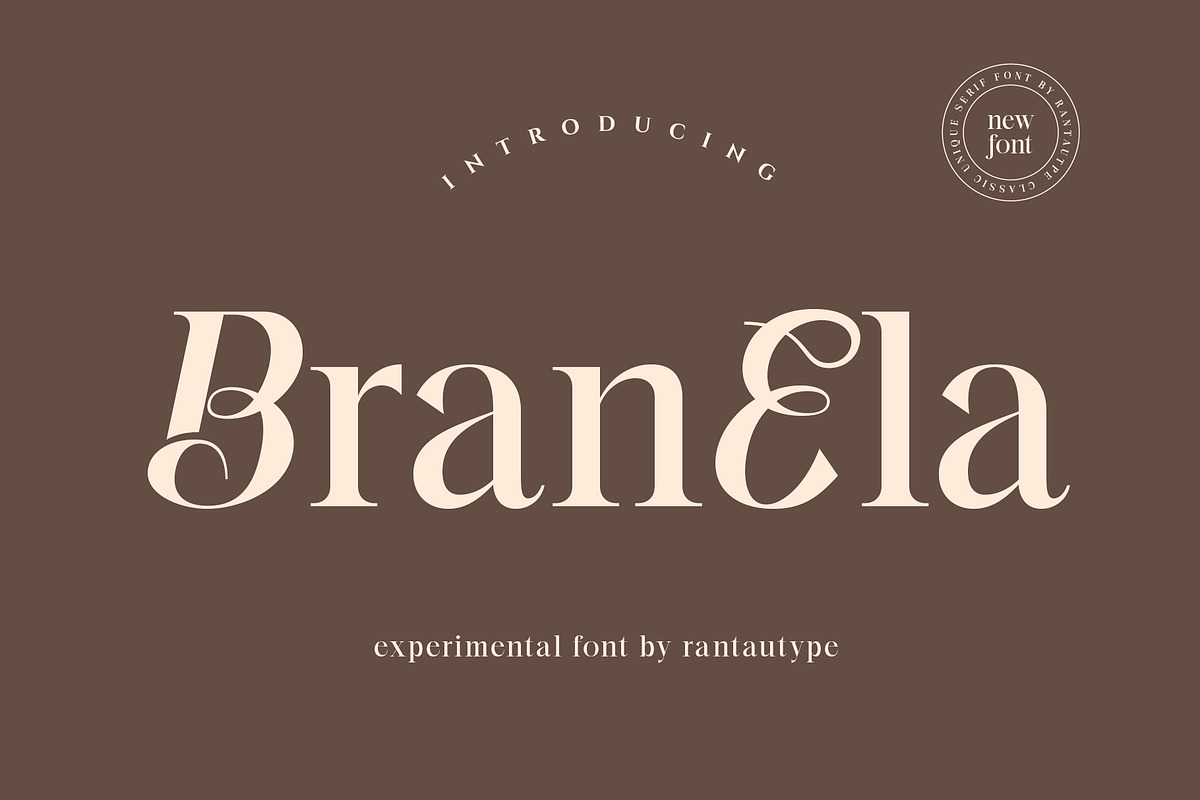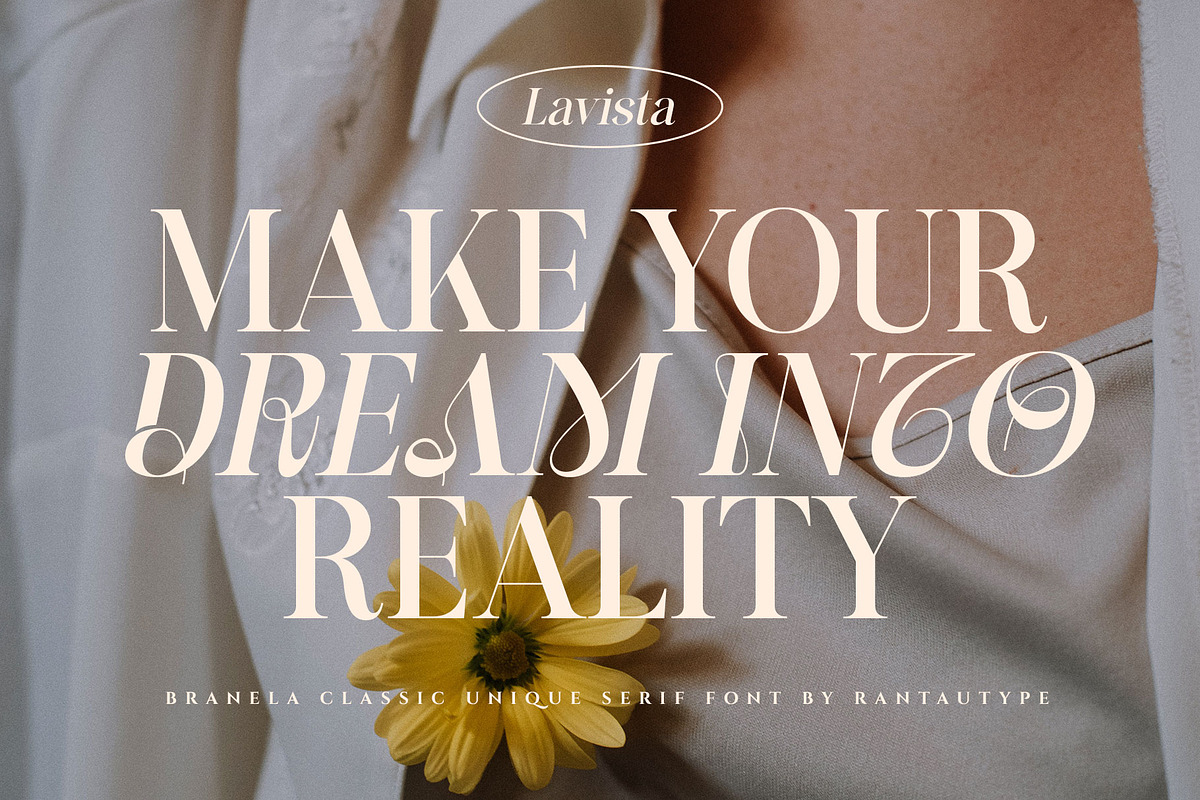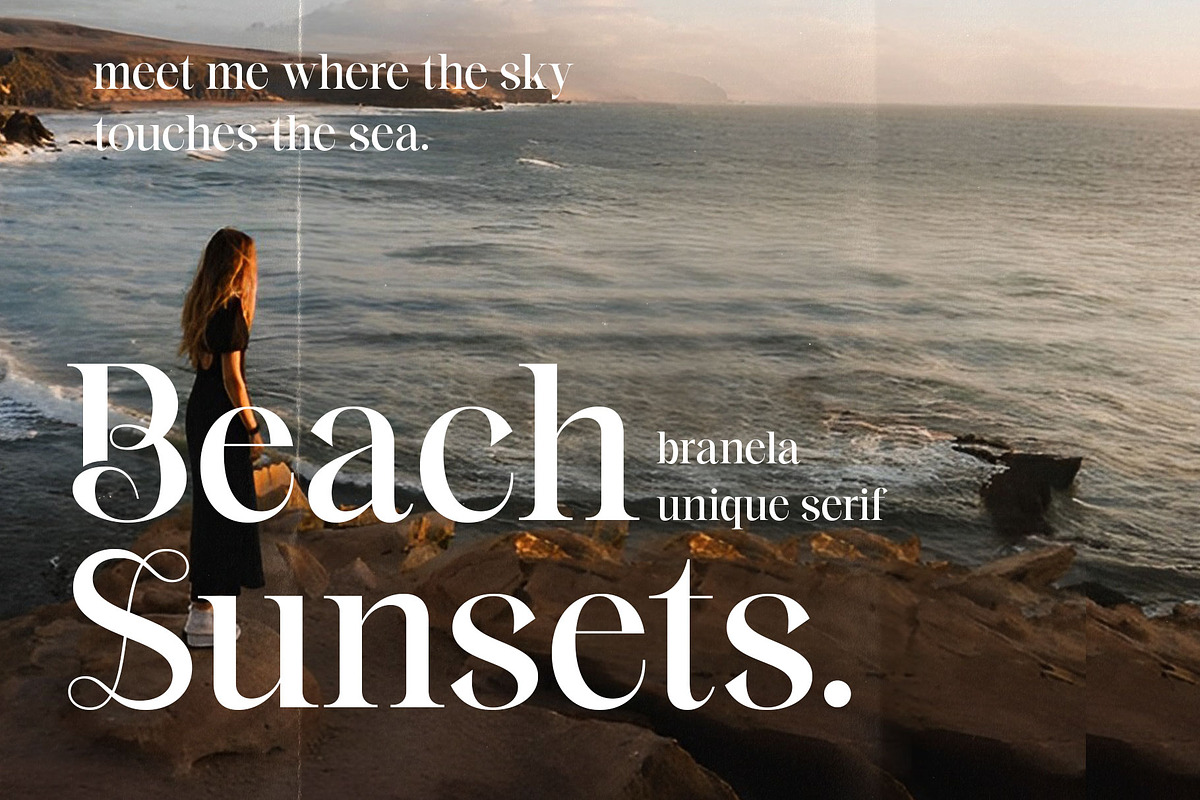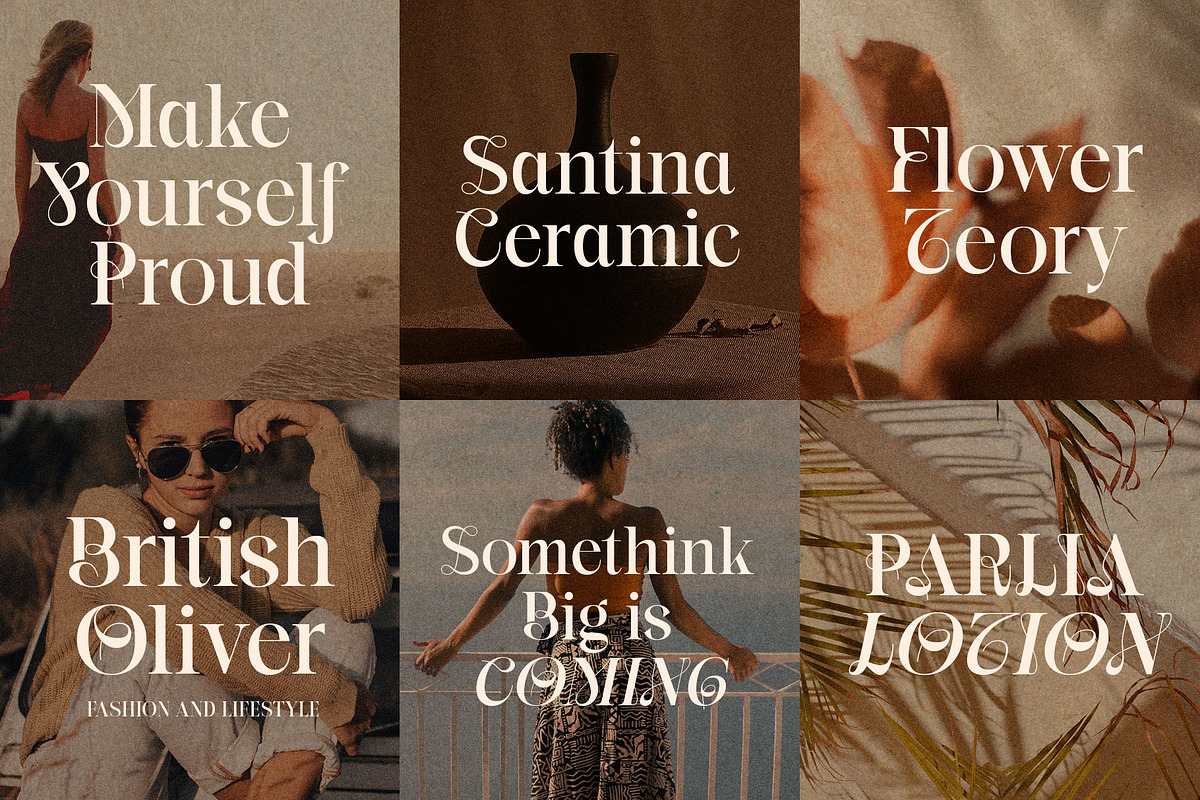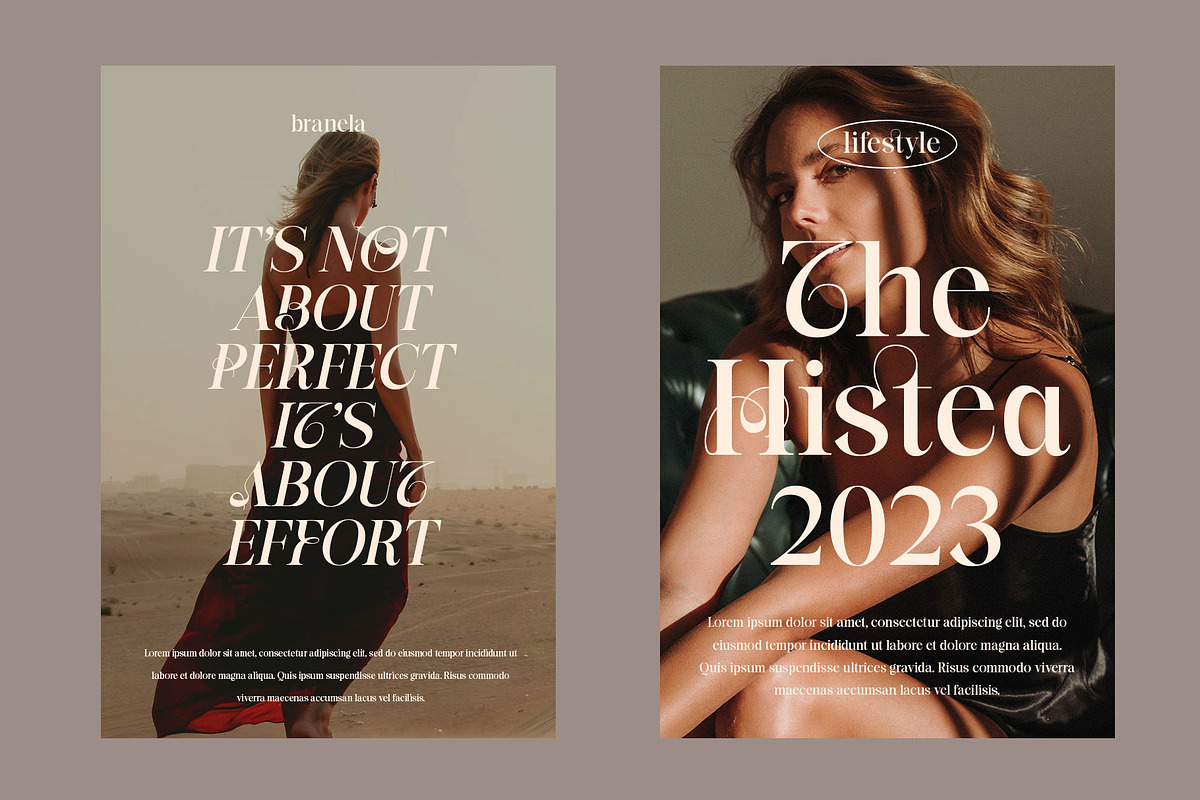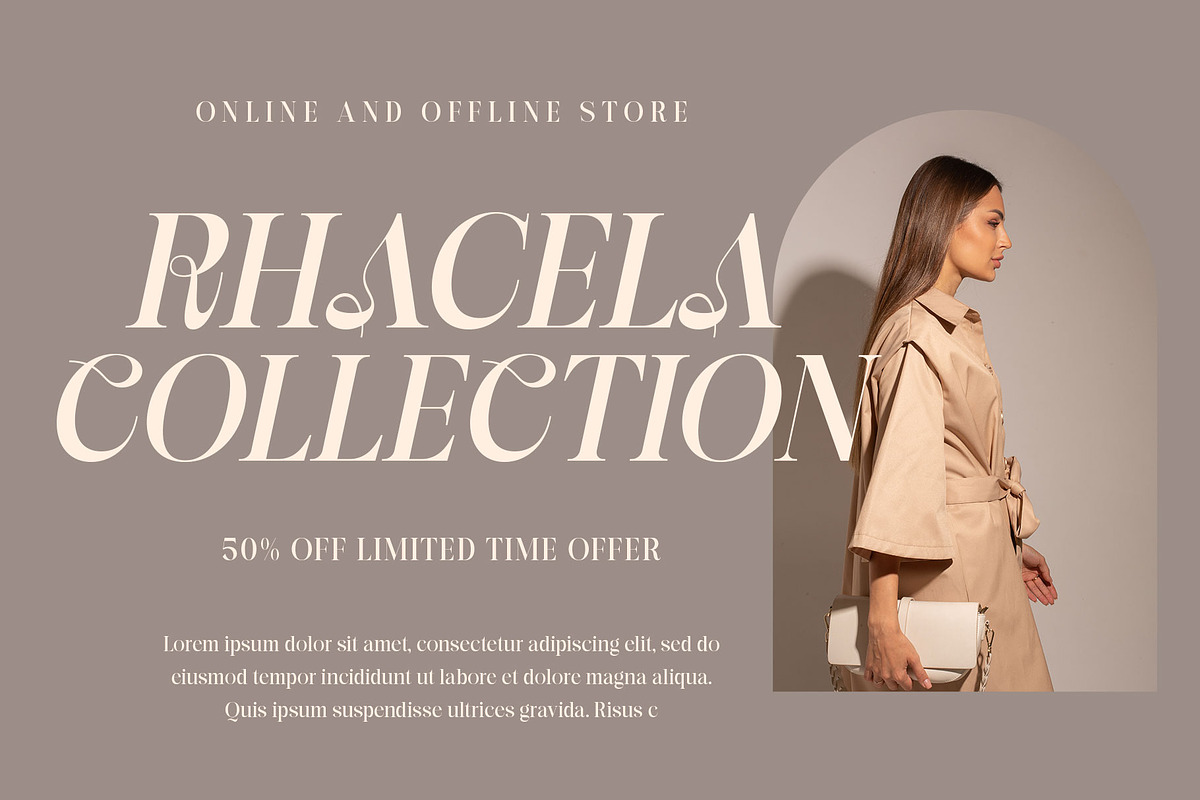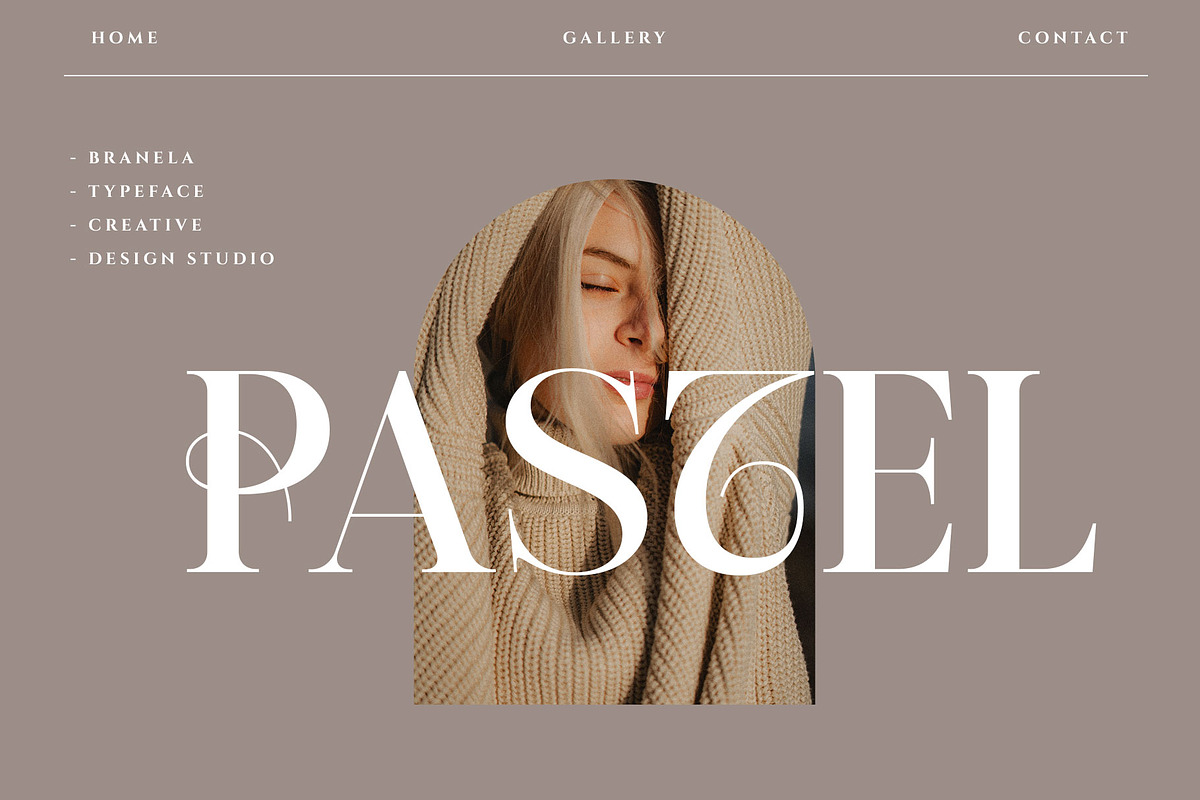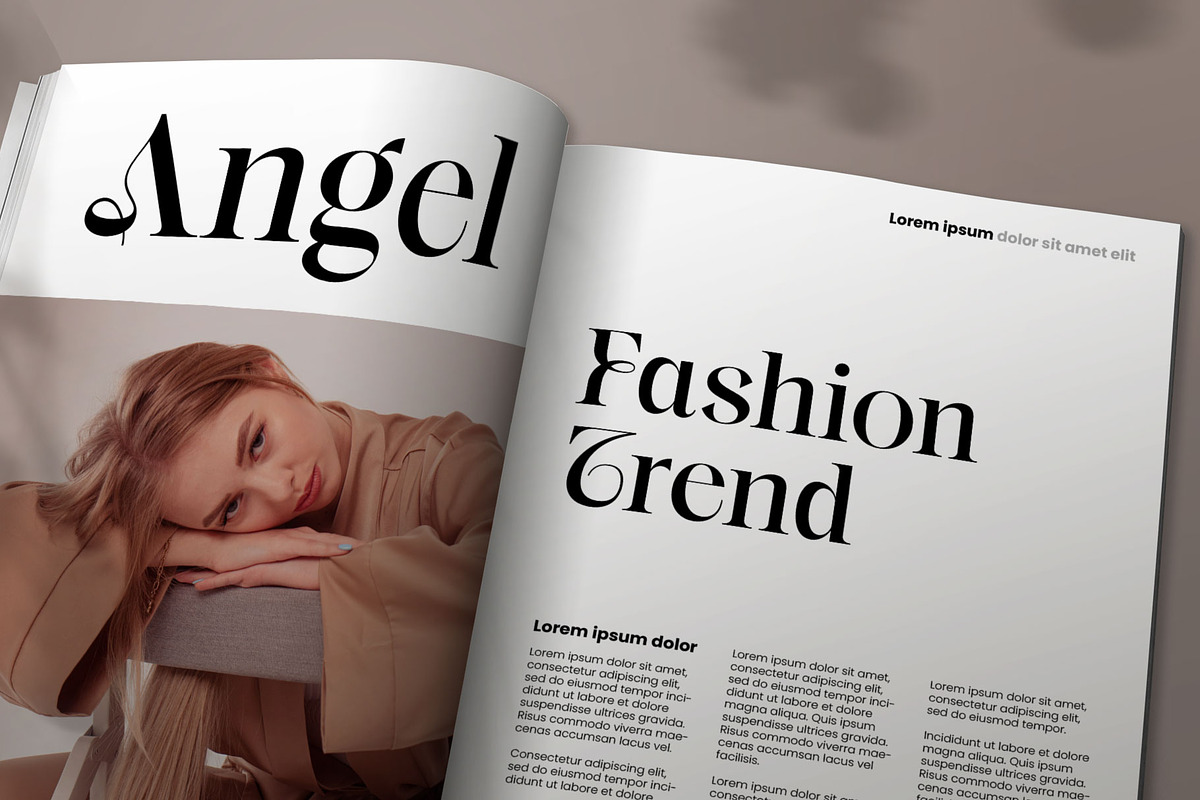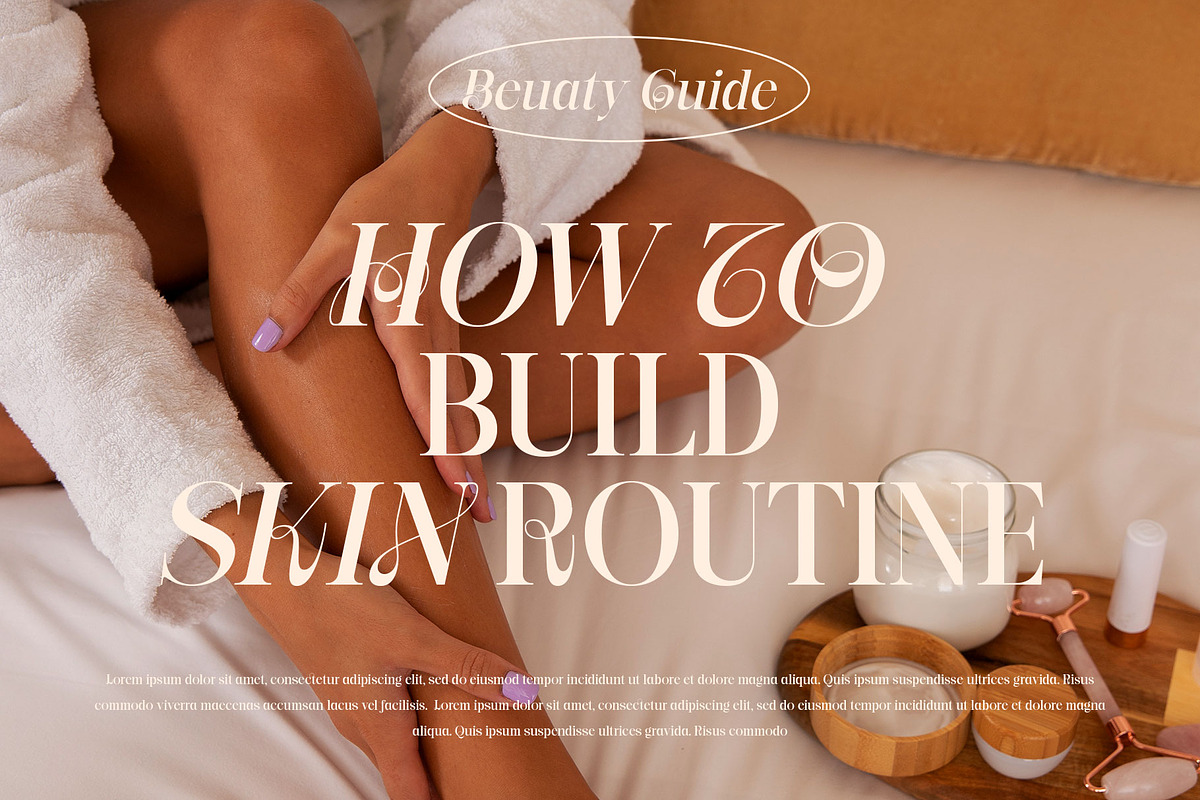
Branela Experiemental Serif font
Hi Ladies and Gentleman ! Proudly present experimental serif font “Branela”, by rantautype.
Branela is a unique display serif font. Branela come with unique uppercase to mix and max you work more versatility and contemporary appeal.
Branela is a beautiful choice for any creative endeavor, chic, lifestyle design such as logos, title, cover, branding, display, magazine and more. Now you have more choice when using Darina for typography.
Branela here to make your work to high level!!!
- Standar letter A-Z and a-z
- Alternate and Ligature
- Multilinggual support